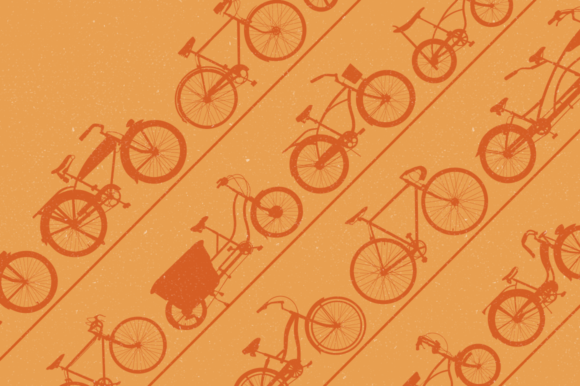
The Ultimate Font for Cycling Enthusiasts: Bikes Font
As a designer, I’ve had my fair share of struggles when working on projects. But one moment that stands out was when I was tasked with creating a brochure for a local bike shop. I wanted to add a personal touch to the design, but I was having trouble finding the right font to match the theme. That’s when I stumbled upon the Bikes Font, and it changed the game. 🚴‍♀️
A Font that’s the Perfect Ride
The Bikes Font is a dingbat font that lives up to its name. The capital letters are detailed silhouettes of cycles, while the lowercase letters are simplified versions perfect for smaller uses. It’s a font that’s sure to delight cycling enthusiasts and designers alike.
• ✨ Detailed silhouettes of cycles for capital letters
• ✅ Simplified versions for lowercase letters
• 🌟 Perfect for cycling-themed designs, brochures, and posters
• 👍 Easy to read and visually appealing
While the Bikes Font is amazing, there are a few things to keep in mind: 🤔
• ⚠️ Limited character set, mainly focused on cycle silhouettes
• ⚠️ May not be suitable for body text due to its unique design
The Designer Inspiration Behind Bikes Font
The Bikes Font was created by a designer who is passionate about cycling. The idea for the font came about when the designer was brainstorming ideas for a cycling-themed design project. They wanted to create a font that would perfectly capture the spirit of cycling, and the Bikes Font was born.
Q: What type of designs is the Bikes Font best suited for?
A: The Bikes Font is perfect for cycling-themed designs, brochures, posters, and any project that requires a unique and eye-catching font.
Q: Is the Bikes Font available in different styles or weights?
A: Currently, the Bikes Font is available in a single style. However, the designer may release additional styles or weights in the future.